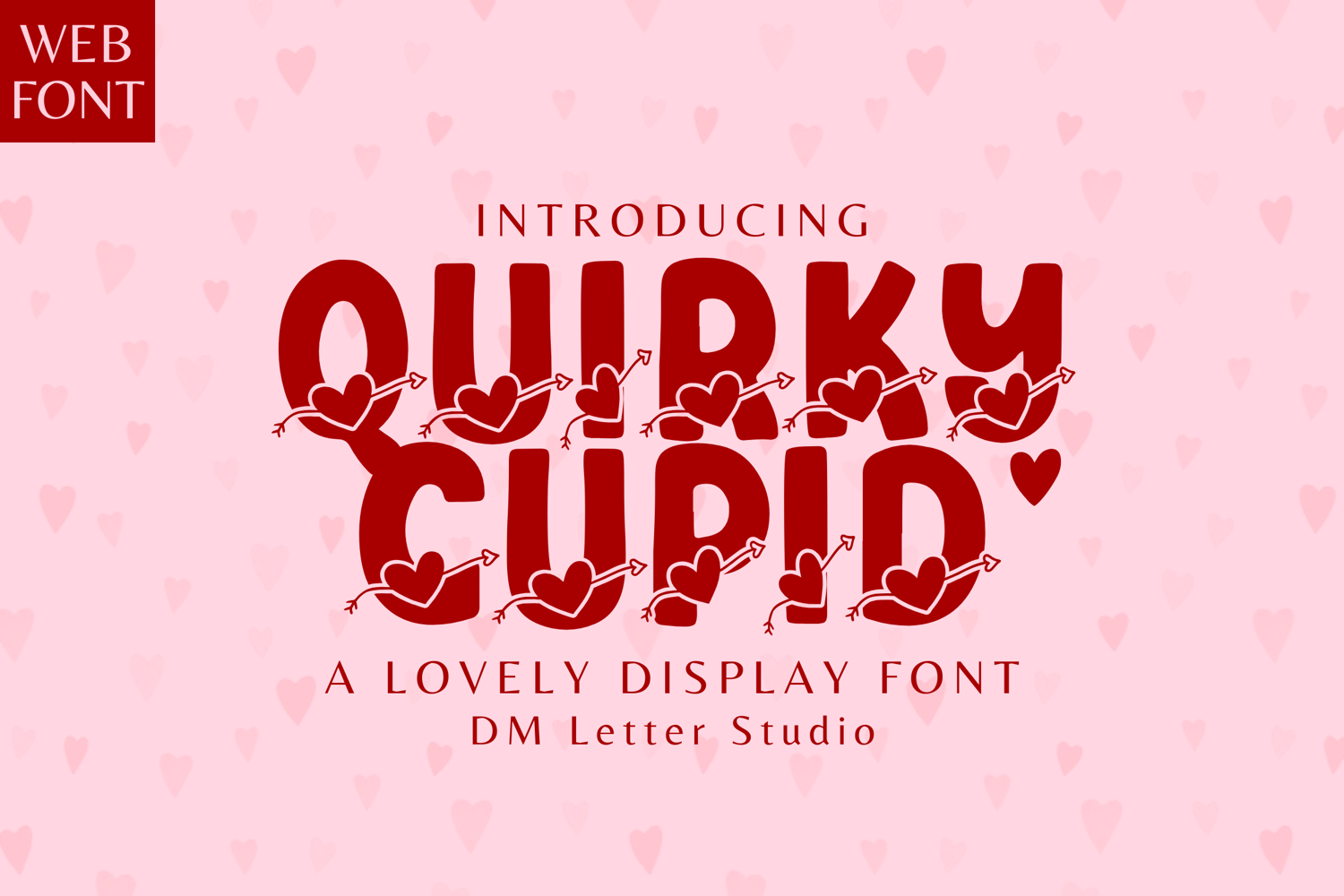
Quirky Cupid - Playful & Romantic Valentine Font
Quirky Cupid – Playful & Romantic Valentine Font
Quirky Cupid is a cheerful and whimsical font designed to celebrate love in the most charming way. With its heart-infused strokes and quirky, hand-drawn style, this font is perfect for Valentine's Day cards, wedding invitations, love notes, romantic crafts, and playful branding. It adds a touch of fun and affection to any heartfelt project.
• Heart-Inspired Letter Design: Each character features playful Valentine accents and a charming hand-drawn feel.
• Perfect for Love-Themed Projects: Ideal for greeting cards, party invites, couple merch, digital art, and more.
• Romantic & Whimsical Aesthetic: Light-hearted and sweet style suited for any affectionate design.
• Complete Character Set: Includes uppercase, lowercase, punctuation, numbers, and multilingual support.